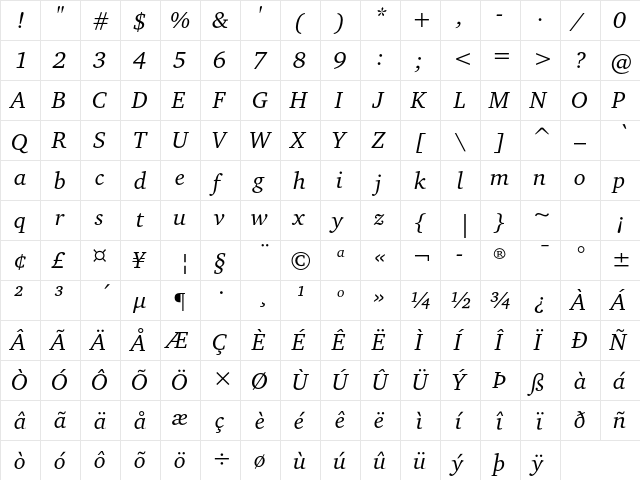
Charter ITC Std Italic
| Designer | Matthew Carter |
Design Context for Charter ITC Std Typeface
Charter ITC Std takes a measured approach to typography — its balanced proportions and neutral character make it a reliable workhorse for both digital and print work. The slanted form adds forward momentum and visual energy.
Pro Tip: Use Charter ITC Std for emphasis, pull quotes, and subheadings where its slanted energy can add rhythm to the layout.